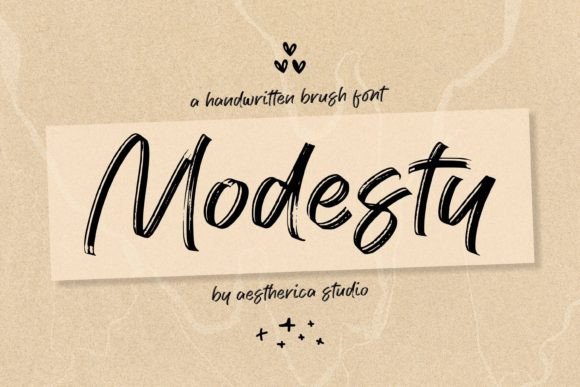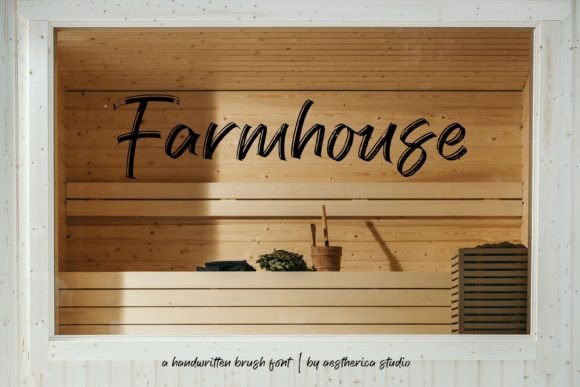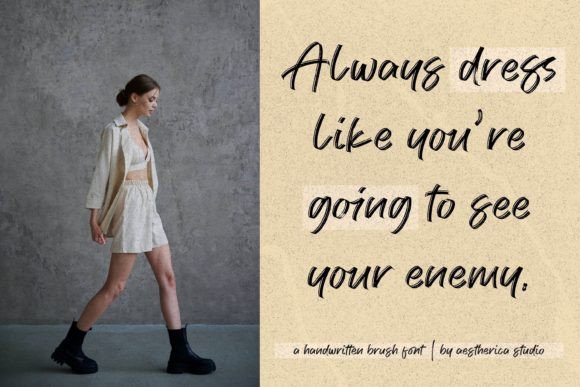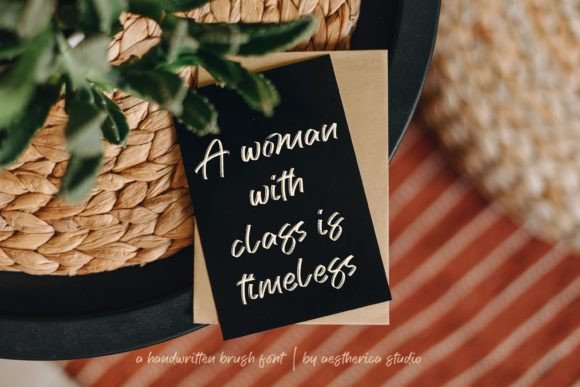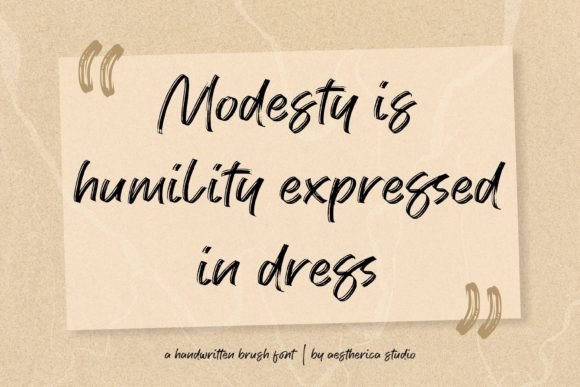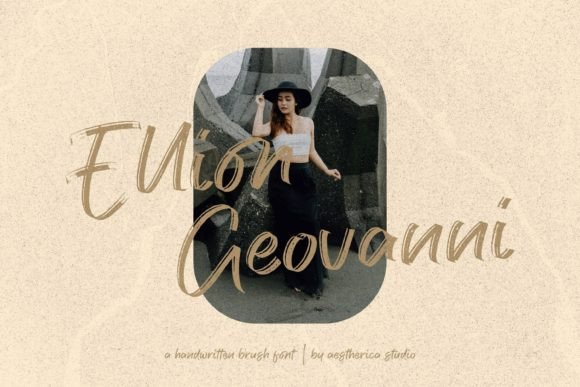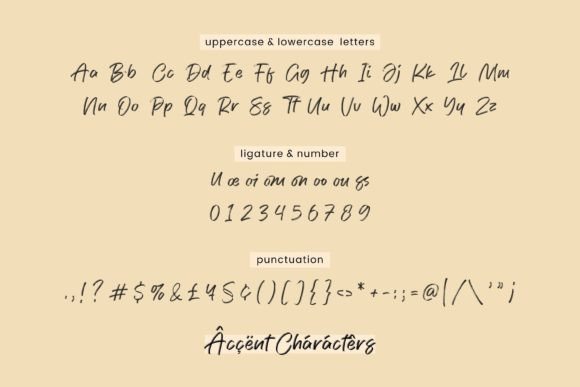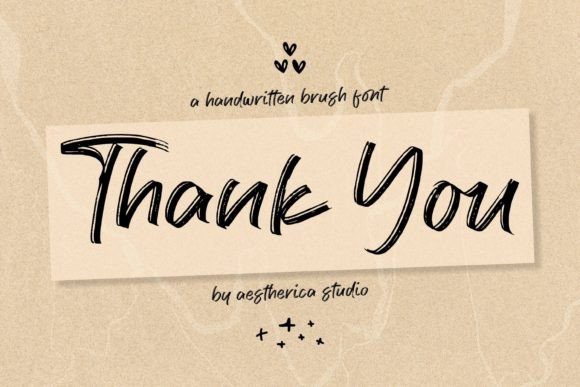
Modesty Font
About Modesty Font
Modesty is not just a font; it’s a bold statement, a fusion of handwritten elegance and artistic flair. Crafted with a dry brush style, this script font exudes a unique charm that is perfect for making a strong impact in various design contexts. Modesty’s high-concept artistry adds a touch of sophistication, making it a versatile choice for apparel, branding, marketing, web design, and many other creative applications.
Imagine Modesty in apparel design. Whether it’s on t-shirts, hoodies, or caps, this font adds a trendy and artistic vibe. Its handwritten dry brush style creates a sense of urban chic, making the apparel pieces stand out. Modesty’s bold strokes and unique characters transform ordinary clothing items into fashion statements, reflecting the wearer’s confidence and style. Modesty enhances the visual appeal of apparel, making it eye-catching and fashionable.
In branding, Modesty makes a memorable impression. Picture it in a high-end fashion brand’s logo or a boutique cafe’s signage. Its handwritten elegance and high-concept art elevate the brand’s identity, making it sophisticated and captivating. Modesty’s unique style ensures that the brand stands out in a crowded market, leaving a lasting impression on customers and creating a strong brand image. Modesty turns branding into a work of art, making it visually stunning and memorable.
For marketing materials, Modesty adds a touch of creativity. Whether it’s on brochures, posters, or digital advertisements, this font enhances the marketing content, making it visually appealing and impactful. Modesty’s artistic flair creates a sense of uniqueness, capturing the audience’s attention and conveying the message with style. Modesty’s high-concept artistry ensures that marketing materials leave a lasting impression on viewers, encouraging engagement and response.
In web design, Modesty adds a layer of sophistication. Whether it’s used in website headers, banners, or interactive elements, this font creates a visually pleasing user experience. Modesty’s handwritten dry brush style adds a touch of warmth and authenticity to the digital environment, making the website inviting and engaging. Modesty’s high-concept artistry enhances the overall design, creating a website that is not only functional but also visually striking and memorable.
Moreover, Modesty seamlessly integrates into various design applications, allowing you to experiment with layouts, color schemes, and graphic elements. Its versatility ensures that it adapts effortlessly to your creative vision, enhancing the overall aesthetic of your projects and leaving a lasting impact on anyone who experiences them.
In summary, Modesty is more than just a font; it’s a creative masterpiece that elevates your designs to new heights of elegance and artistry. Its handwritten dry brush style and high-concept art make it a powerful tool for making a statement in apparel, branding, marketing, web design, and various other uses. So, let Modesty be your artistic companion, transforming your creative ideas into visually stunning and impactful designs that captivate and inspire.